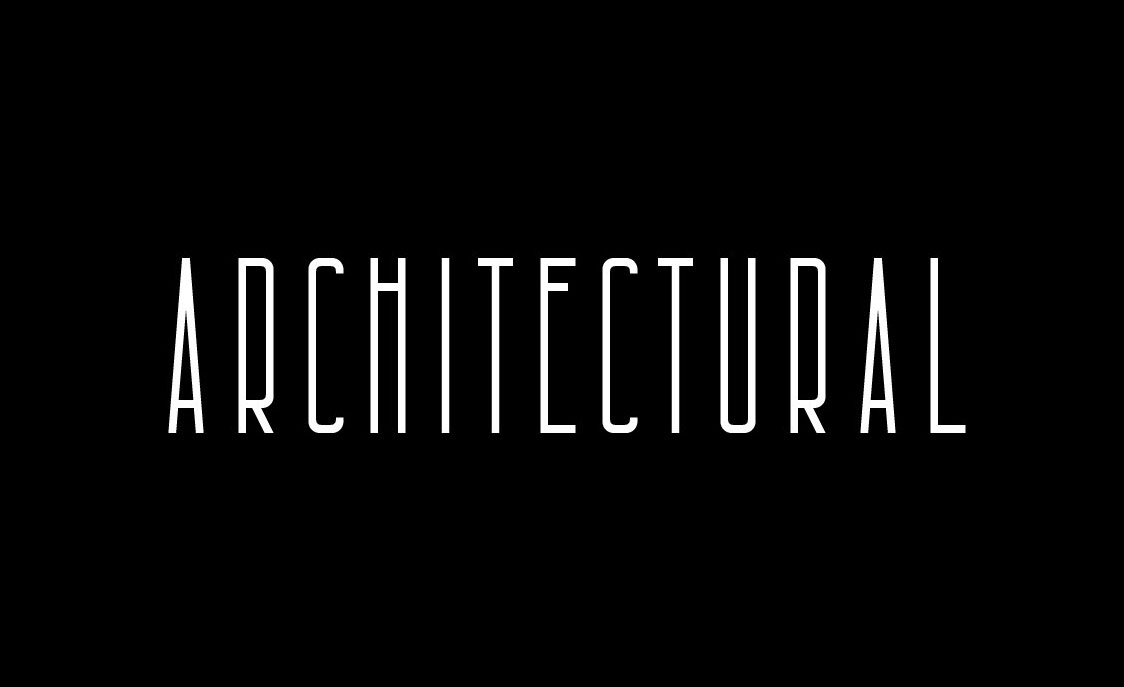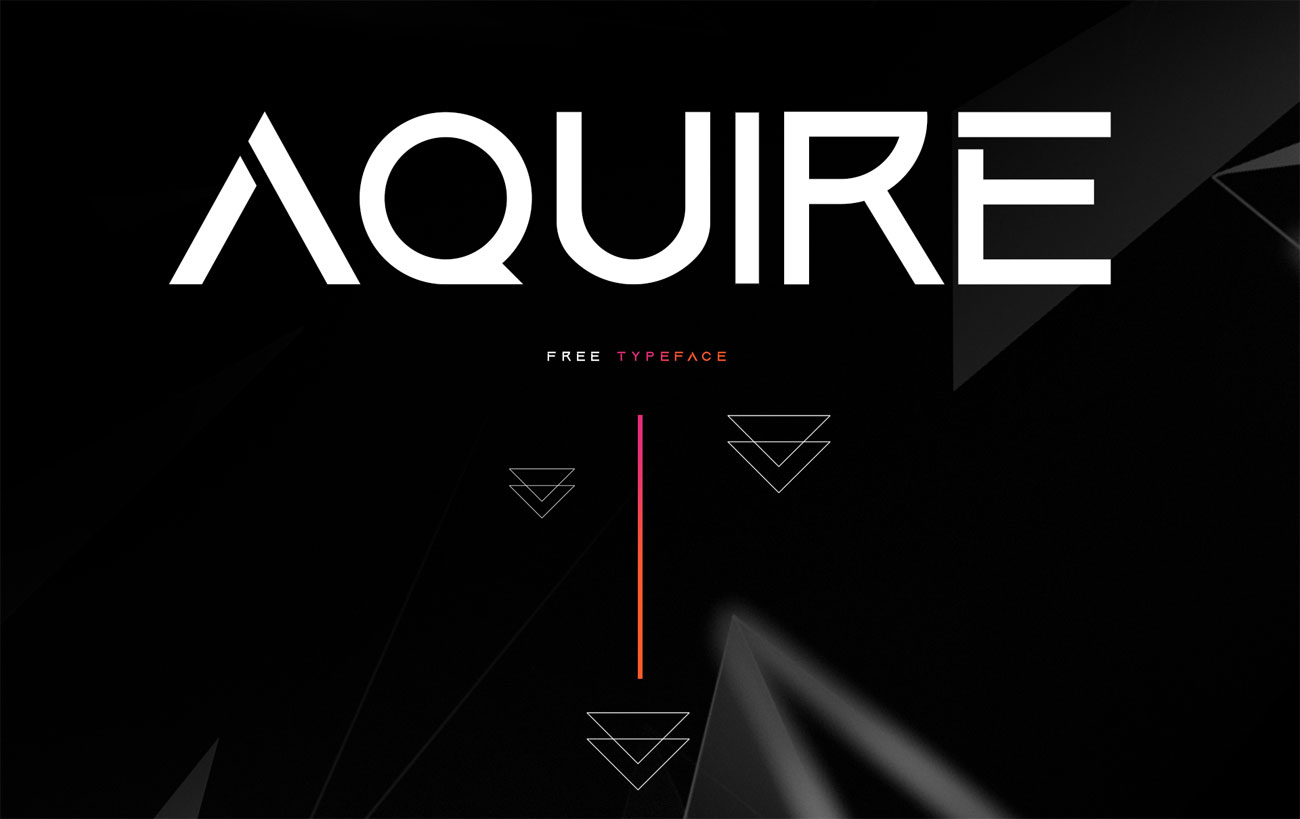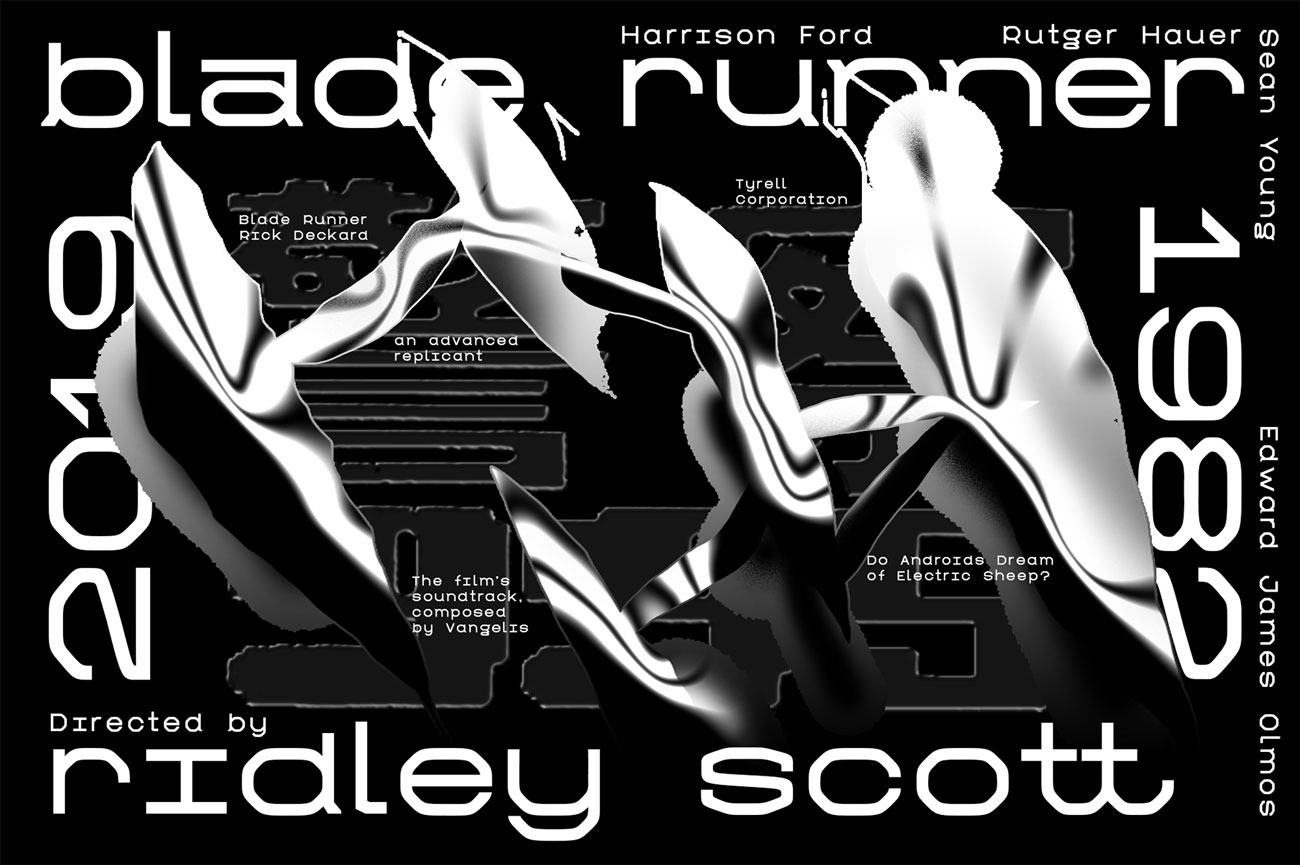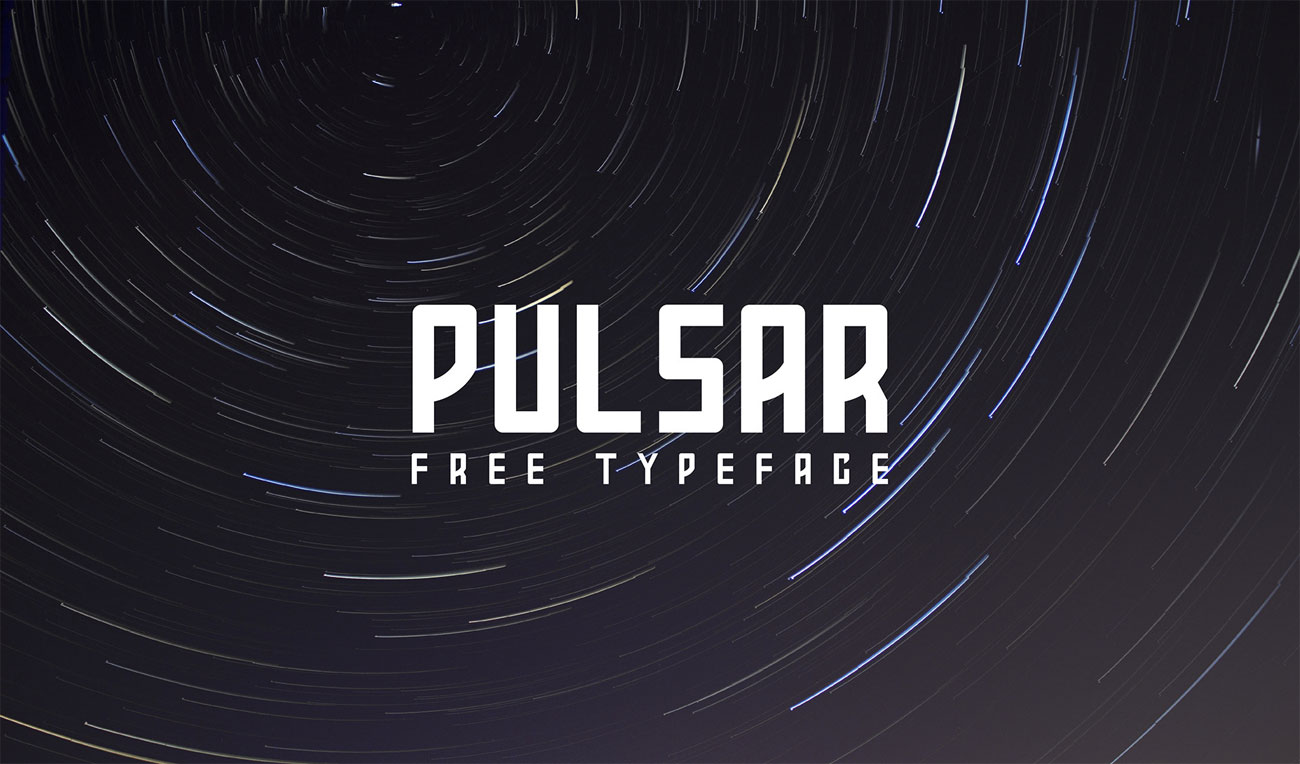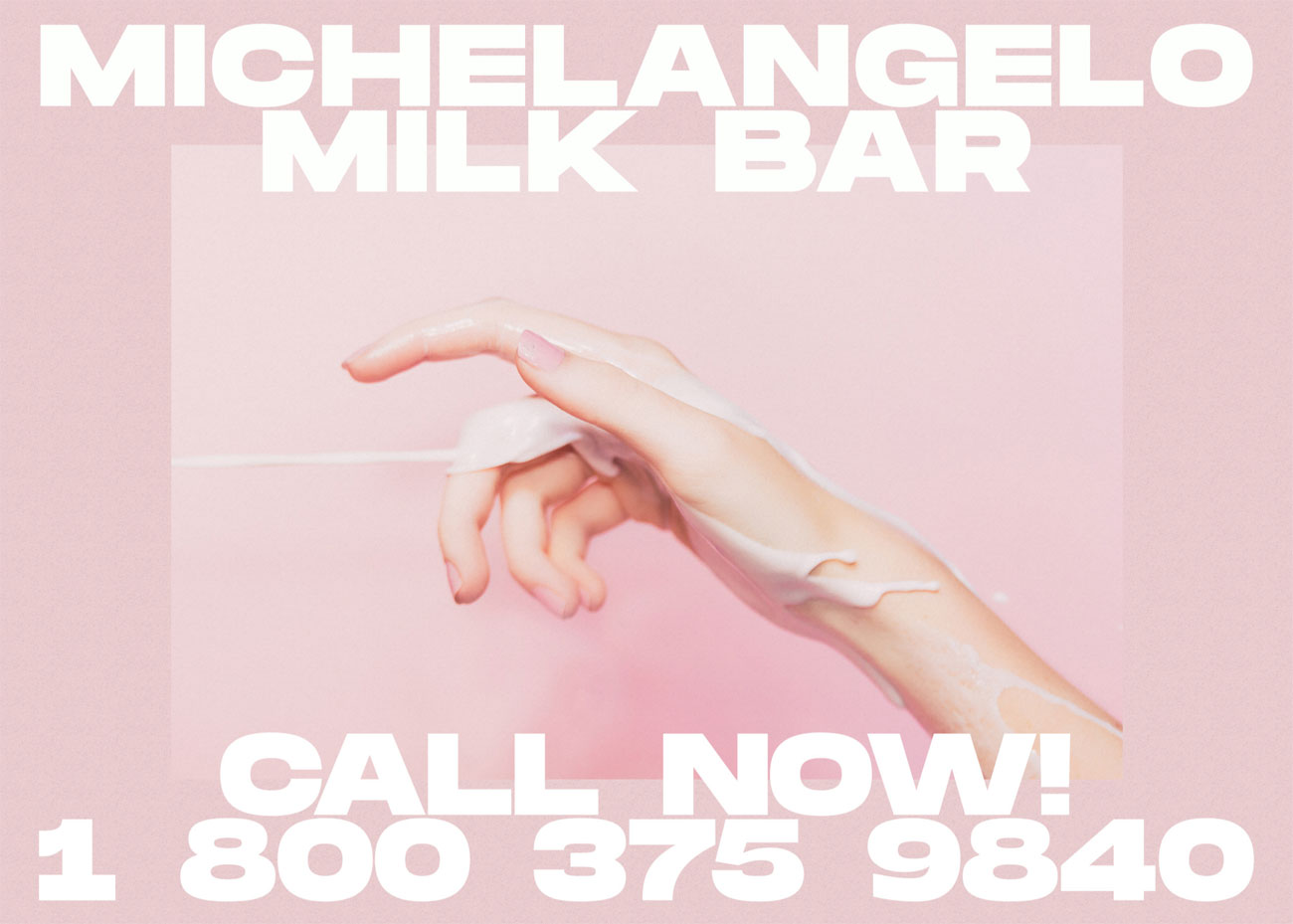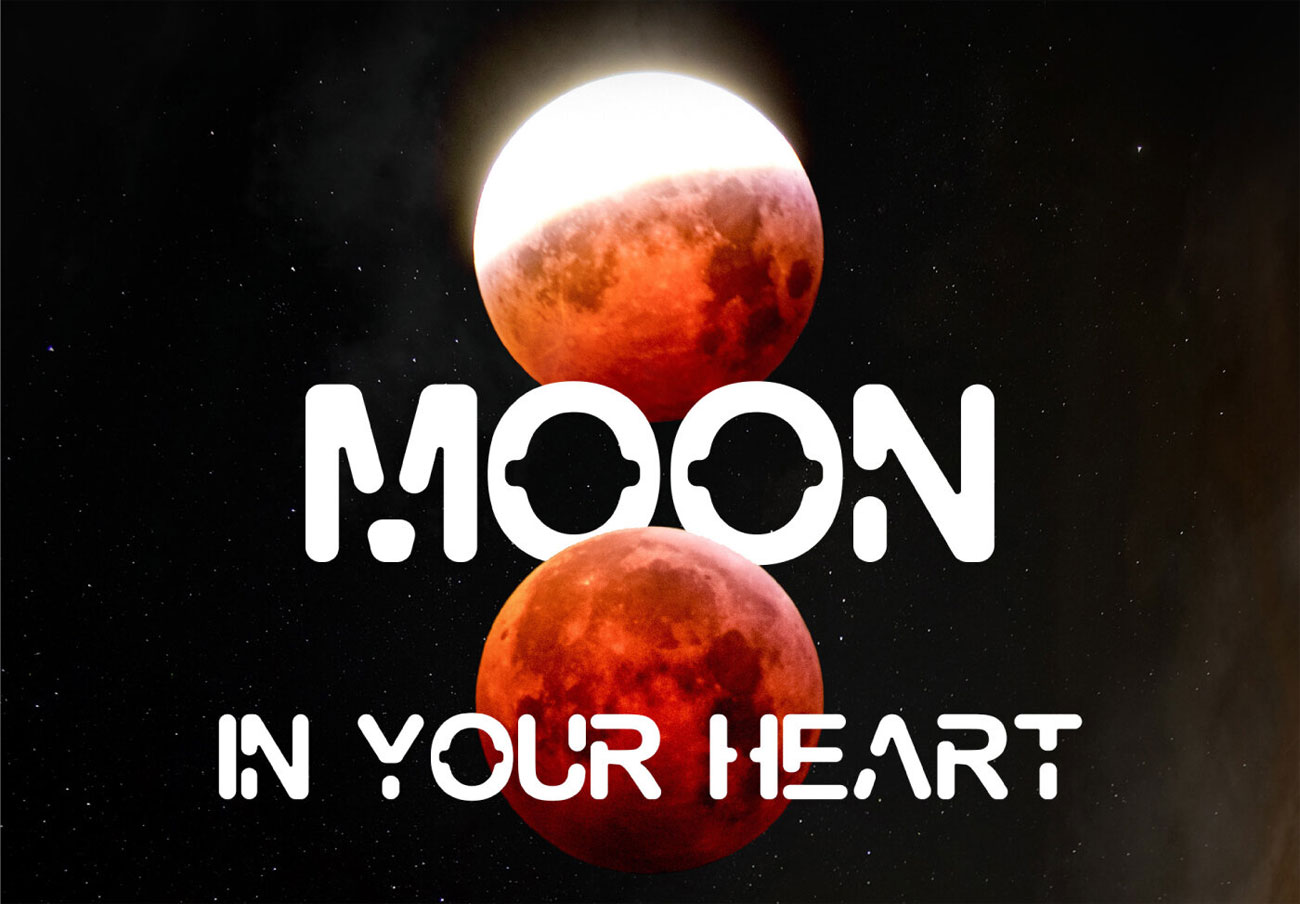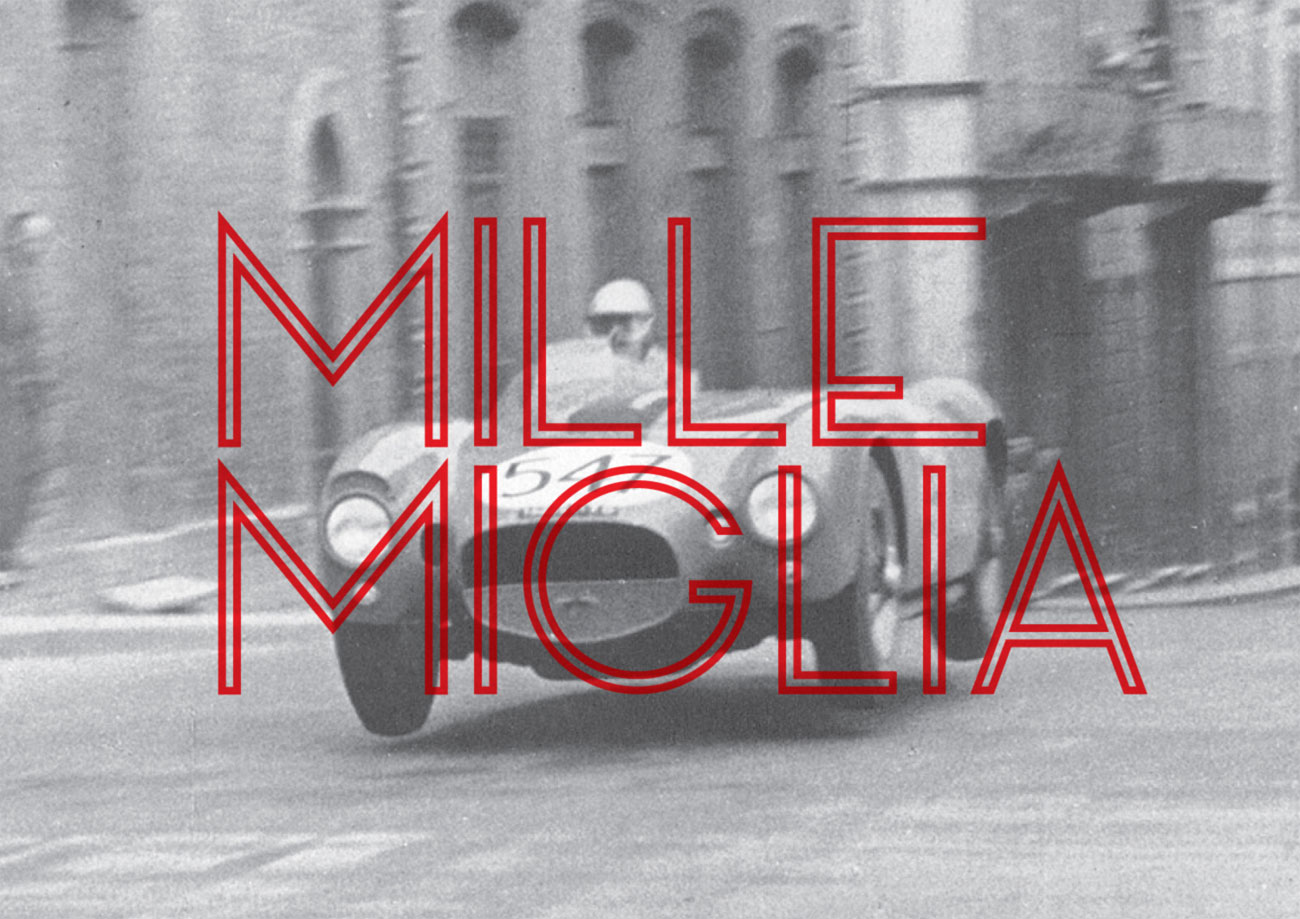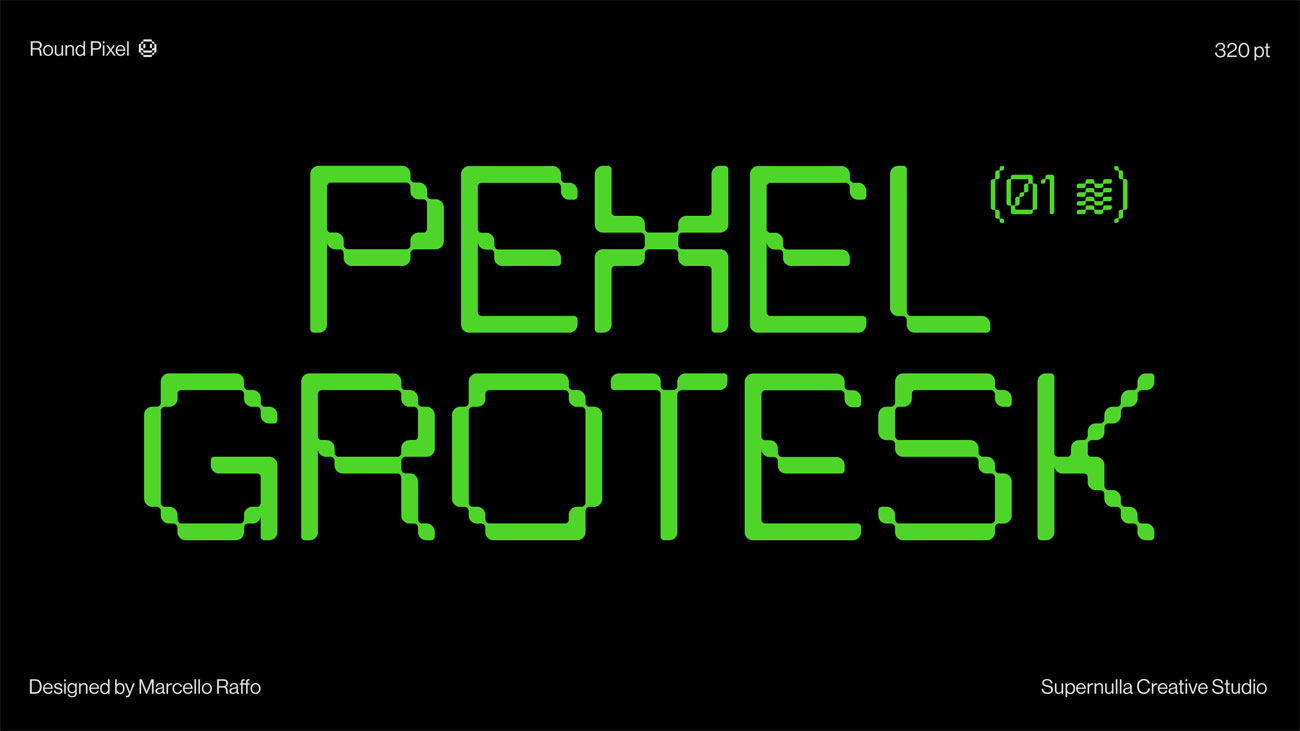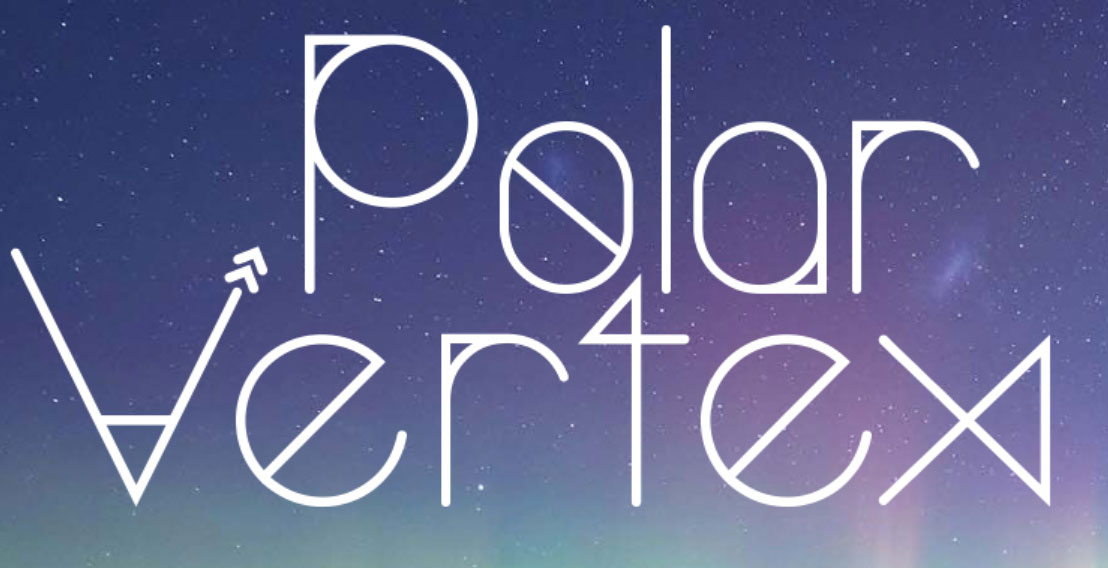
The best free futuristic fonts
Look to a brighter typographical future with these fonts that don't cost a thing.
A futuristic look is the perfect way to give your work a more optimistic feel, and the right typography ought to seal the deal. Nobody knows exactly what the future's going to look like, so there are plenty of options for conveying a futuristic feel typographically.
You don't need to go full science fiction; you just need to stand out from current typographic trends. With the right treatment, even some retro fonts can be made to feel futuristic.
To make things easier for you, we've found ten of the best free futuristic fonts available to download right now. They're all good for personal use, and many of them can also be used in commercial projects.
01. Galaxy
Designed by Gold Graphic, Galaxy is a free futuristic font with a space-age feel. Reminiscent of Helvetica Rounded Black, its characters have little slices taken out of them, with the edges of the resulting gaps rounded off, giving the font a beautifully soft look. Recommended for use as a headline font, it's free for both personal and commercial use.
02. Atlantico
Atlantico is a pack of two free futuristic fonts designed by Manh Nguyen. Inspired, says Nguyen, by the harmonic combination of the beauty of the Atlantic and of chemicals, these minimal geometric sans serifs use the fewest possible strokes to execute their letterforms. The all-caps family comprises a squared font and a version with rounded corners; they're free for personal use only.
03. Polar Vertex
Designer Katherine Howard describes Polar Vertex as a display typeface that inspires dreamers and free thinkers. This delightfully futuristic free font is packed with nautical, celestial, and geometric details, and works best as a display font as these details get lost as the size decreases. Polar Vertex is free for personal use.
04. Monument Extended
If you like a bit of width to your fonts, Monument Extended ought to do the trick. This gloriously wide sans serif typeface is the work of Mathieu Desjardins at Pangram Pangram, and comes in five weights covering everything from ultra-light through to ultra-bold. Monument Extended is free for personal use; if you want to use if commercially, licences are available starting at $30.
05. Architectural
Each letter of Architectural, a free futuristic font designed by Igor Sepanchenko, is constructed as a unique building. We think that's over-stating things a little; its characters definitely have a skyscraper-like feel to them, but you'd never actually mistake them for buildings. Architectural's characters are stratospherically tall, with just a hint of an art deco look, and they're free for both personal and commercial use.
06. G Display
For a futuristic font with a decidedly offbeat, quirky feel to it, take a look at G Display. This peculiar-looking font is made up of straight lines with rounded-off angles, resulting in some slightly weird characters such as the 'R' and 'B', but the overall effect is strangely pleasing and it should work well as a display font. Designed by Timur Zima, G Display's free for personal and commercial use.
07. Aquire
A three-weight (light, regular and bold) typeface designed by Gregory Ortiz, Aquire has some lovely touches to it, such as the sharp point on the bowl of the 'R' and the minimal tail on the 'Q'. This futuristic all-caps typeface is described as being great for headlines, logos and branding projects that use high-tech visuals and design schemes; it's free for commercial use, and a commercial licence is coming soon.
08. Manifesto
Sometimes the best way to get a futuristic look is simply to delve into the past. Manifesto, designed by Tomas Leskovec, feels remarkably futuristic but in fact it's inspired by the Italian rationalist movement of the early 20th century. As with Architectural, there are echoes of art deco to this one, but with much more room to breathe. Manifesto is free for personal and commercial use.
09. Pexel Grotesk
Marcello Raffo's Pexel Grotesk is a peculiar and striking combination of pixel font and grotesque type that'll definitely grab people's attention. Its characters are constructed in a pixel font style – but with some unusual pixel placement going on – with rounded edges, while the letter dimensions and proportions are inspired by grotesques. The result is an outlandish and futuristic font that looks best at larger sizes that accentuate the curves; it's free for personal use, while a commercial licence will cost you €20.
10. Pulsar
Finally, here's another futuristic font with a definite sci-fi feel. Pulsar is an all-caps display font designed by Qaes Al-atoom, and there are unmistakable echoes of the original Star Trek logo to it – just look at the upward sweep of the crossbar on the 'A', for example. Less angular than the Star Trek font, it also features some gentle curves that make it feel softer and friendlier. Pulsar is free for both personal and commercial use.